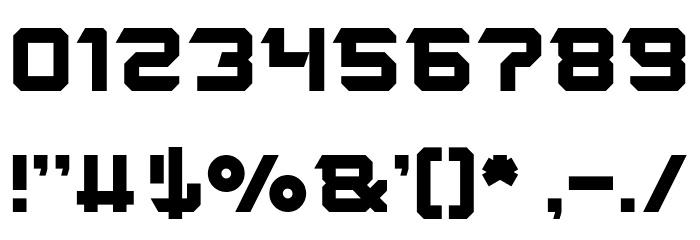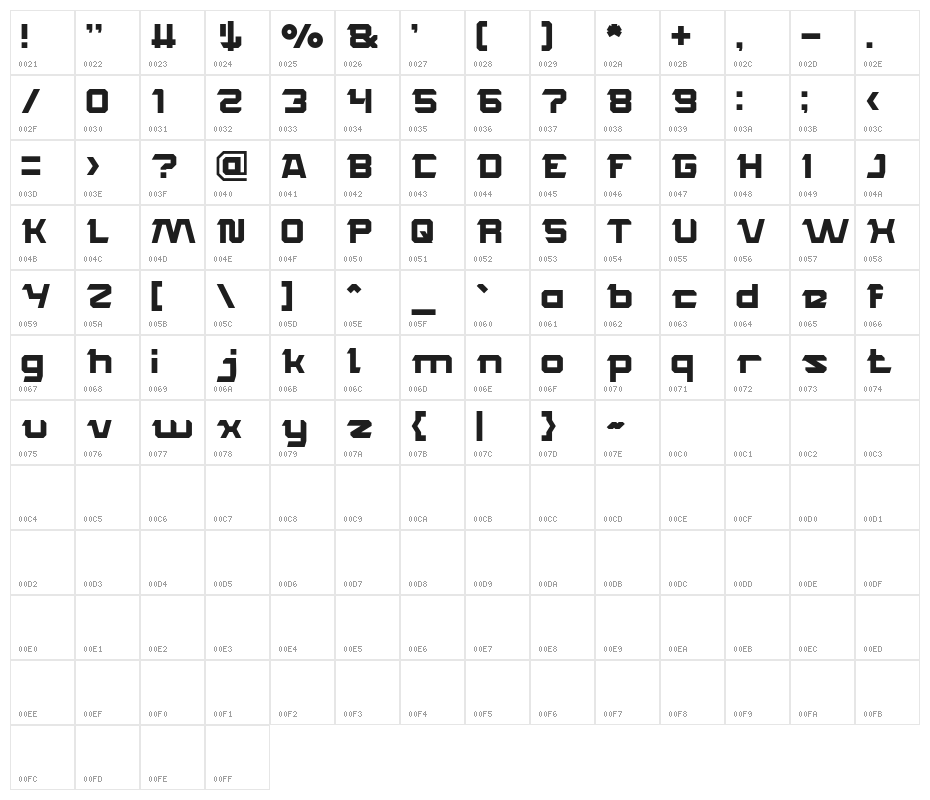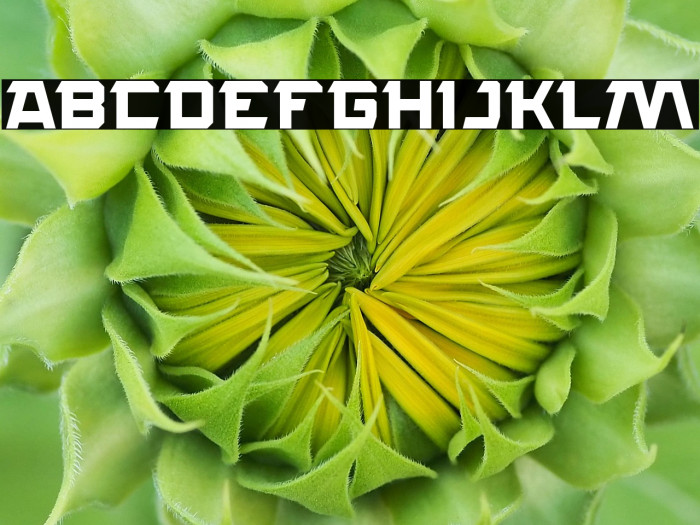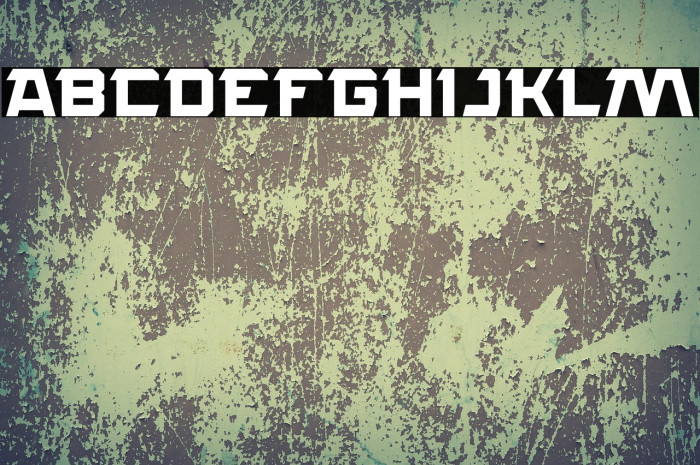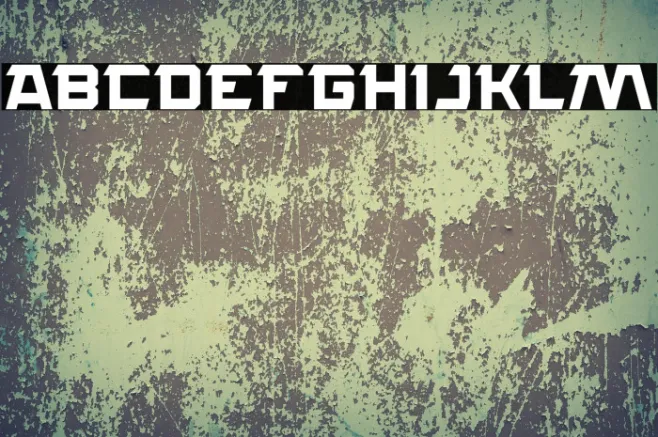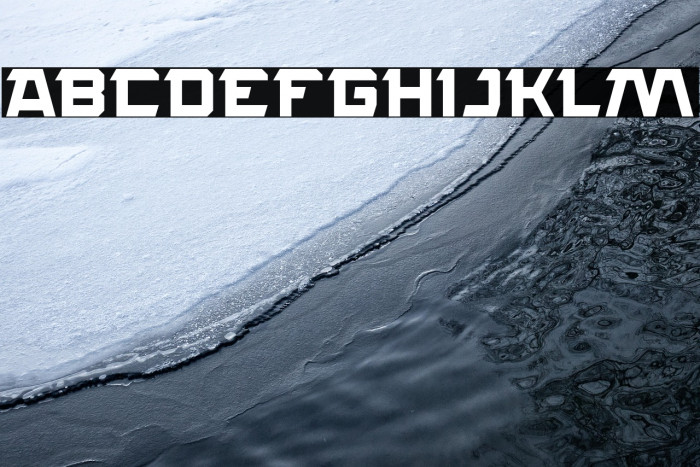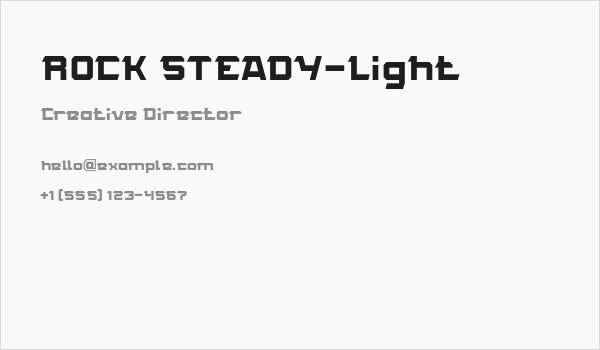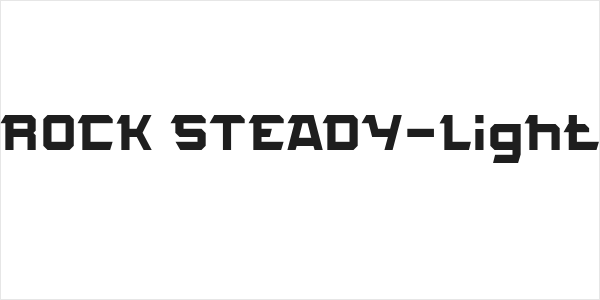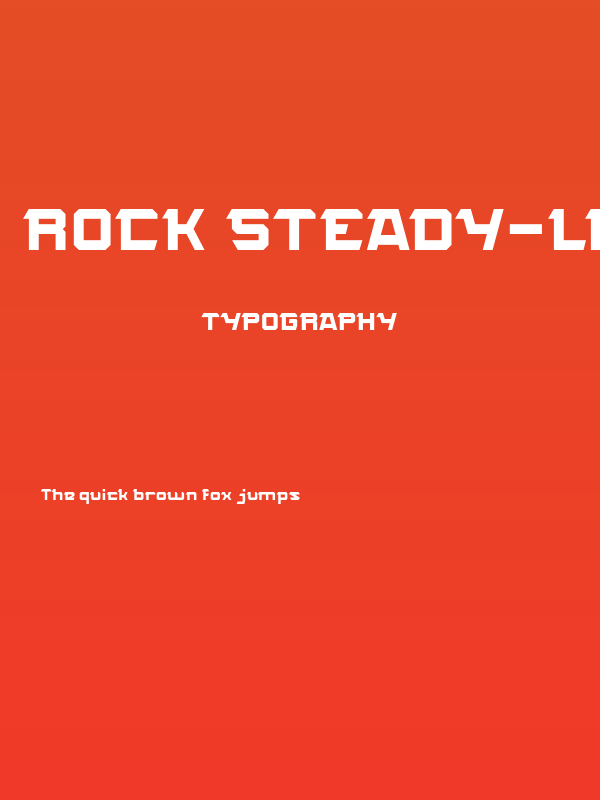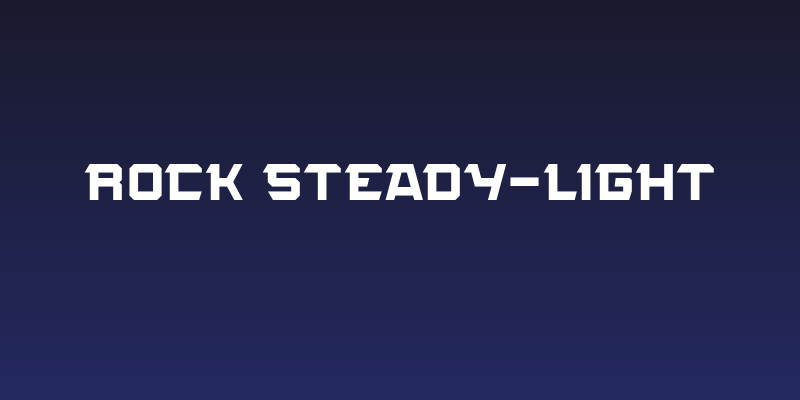
ROCK STEADY-Light Font
ROCK STEADY-Light Description
This font features a bold and geometric design with sharp angles and a strong presence. The uppercase letters are blocky and robust, while the lowercase letters maintain a consistent style with slightly more rounded edges. The numerals are equally bold, ensuring readability and impact. Special characters are designed to match the overall aesthetic, providing a cohesive look across all glyphs. The font's distinct style makes it suitable for projects that require a modern and edgy appearance.
| Proposed Projects | Ideal for branding, posters, video game graphics, and any project needing a strong, modern look. |